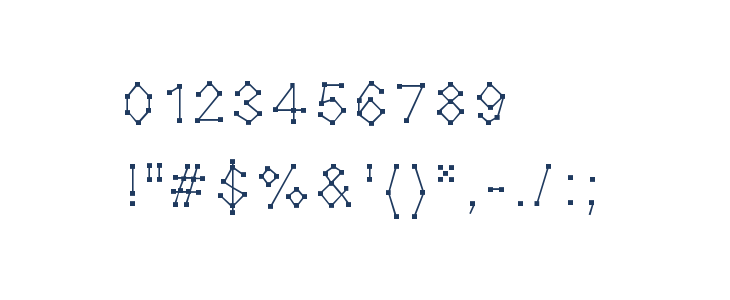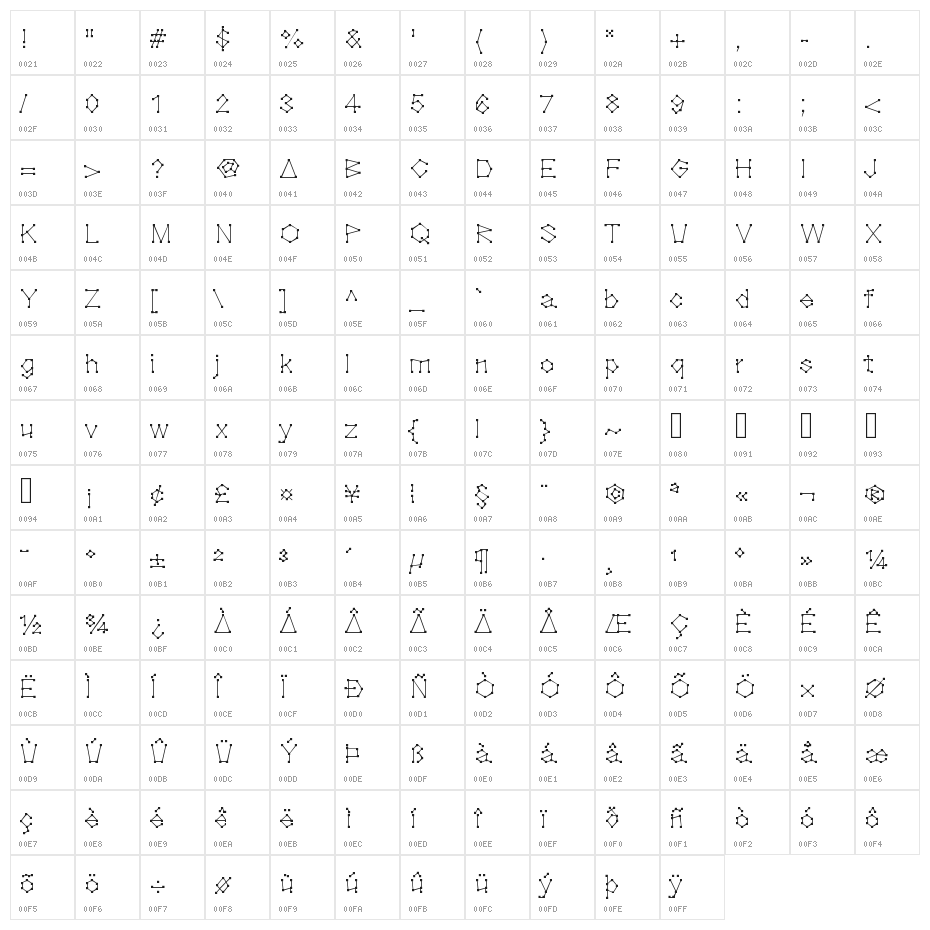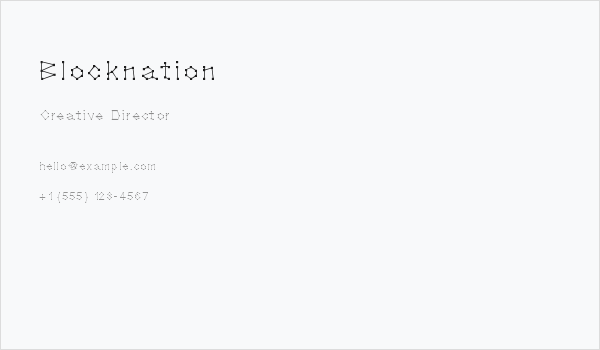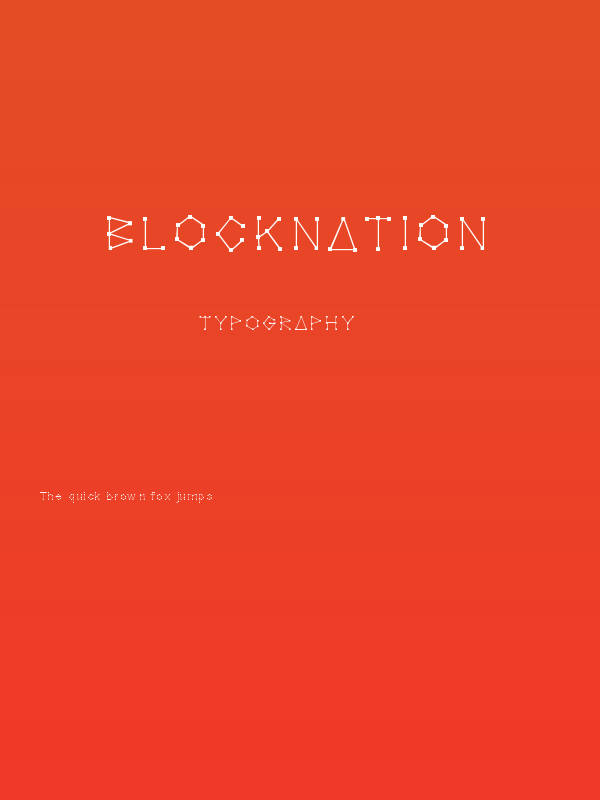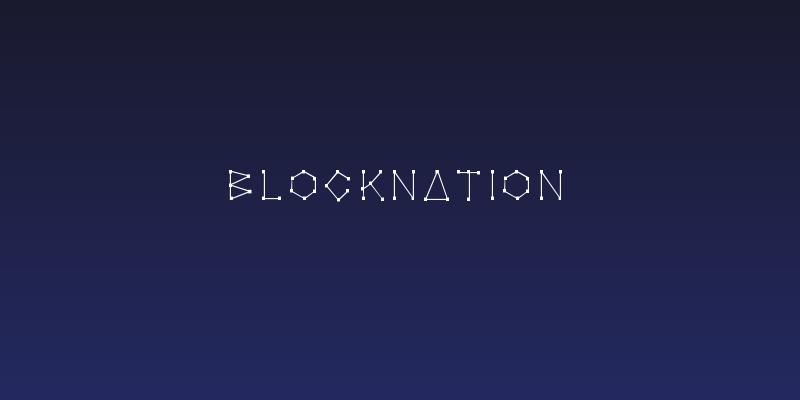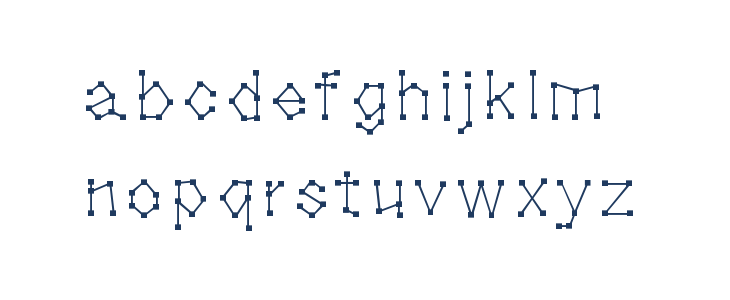
Blocknation Font
Blocknation Description
This font features a unique geometric design, where each character is constructed using a series of connected lines and dots, resembling a constellation or a network diagram. The uppercase and lowercase letters maintain a consistent structure, with sharp angles and straight lines, giving it a modern and technical appearance. The numbers and special characters follow the same design principle, ensuring uniformity across the entire set. This font's distinct style makes it stand out, offering a futuristic and digital aesthetic that is both eye-catching and innovative.
| Proposed Projects | Ideal for tech-related branding, futuristic posters, digital art projects, and innovative product packaging. |